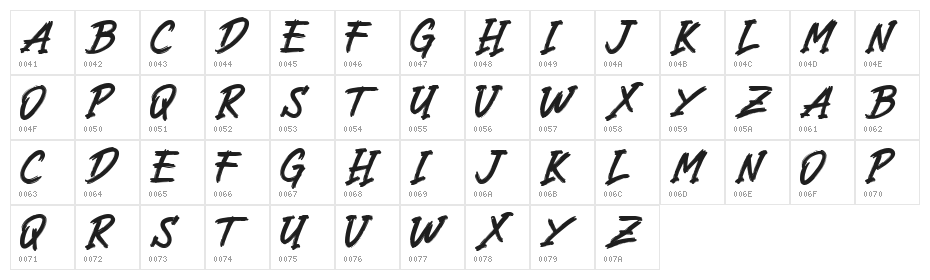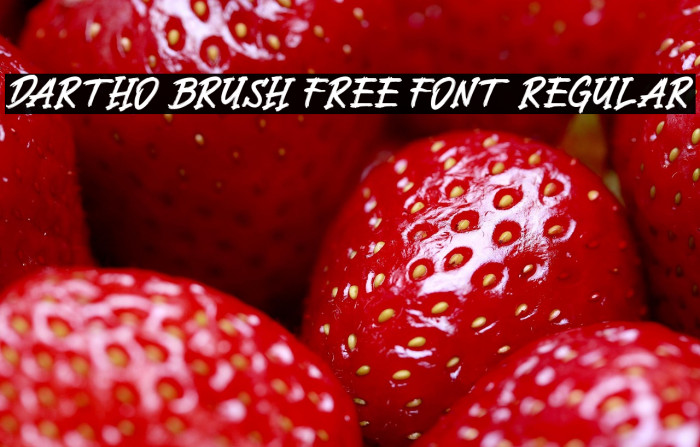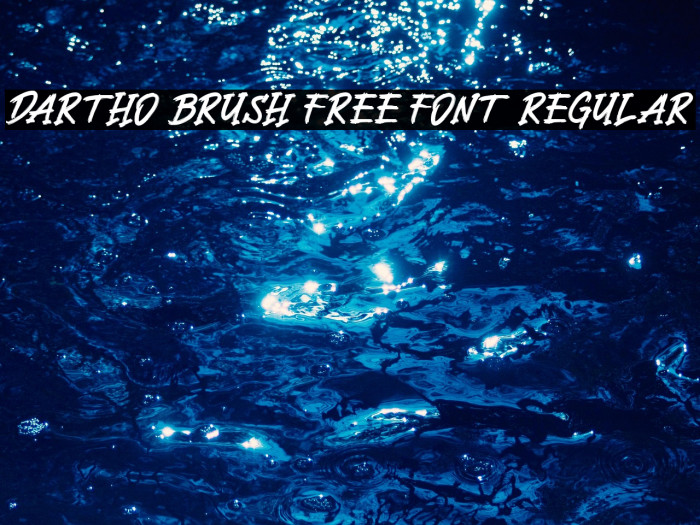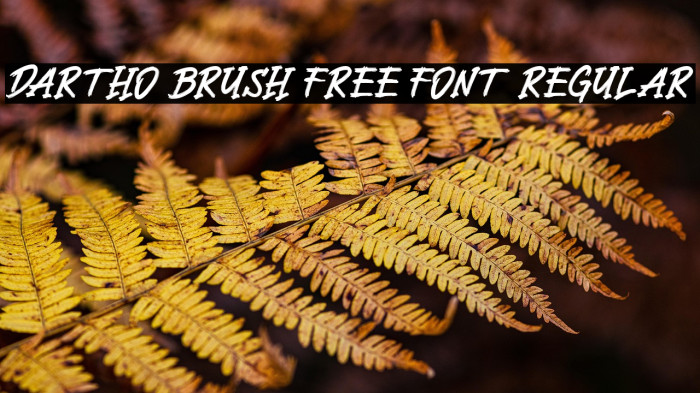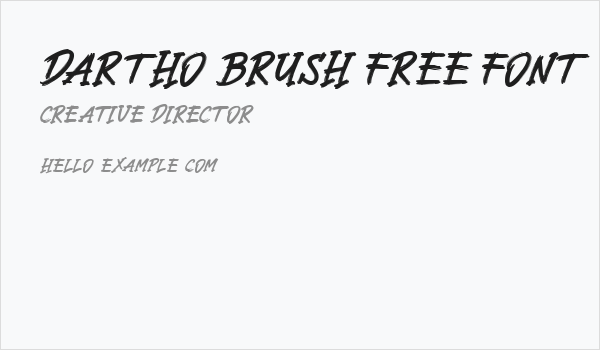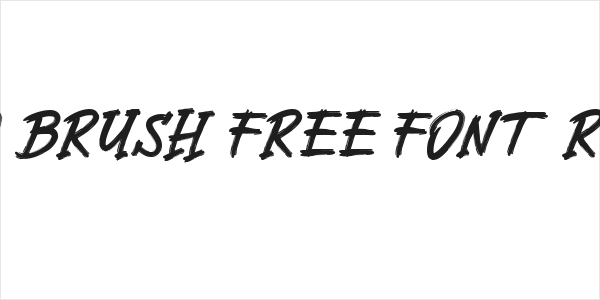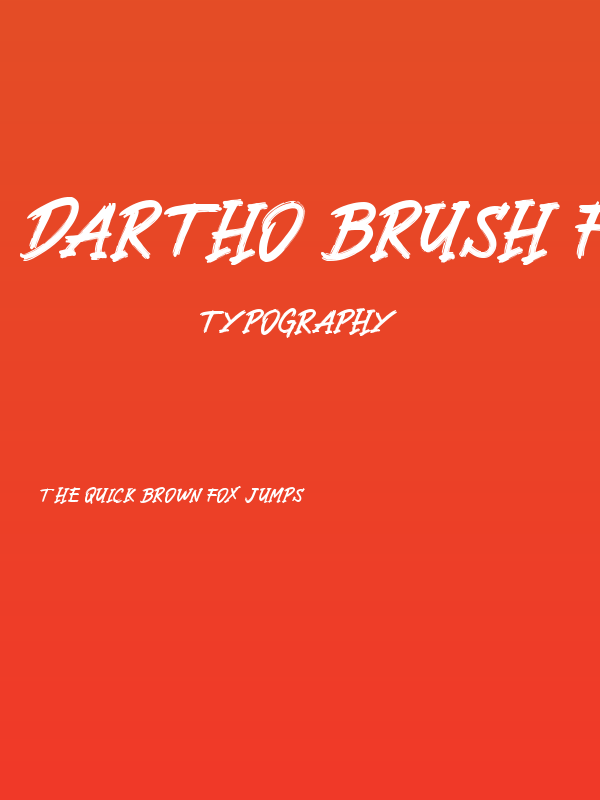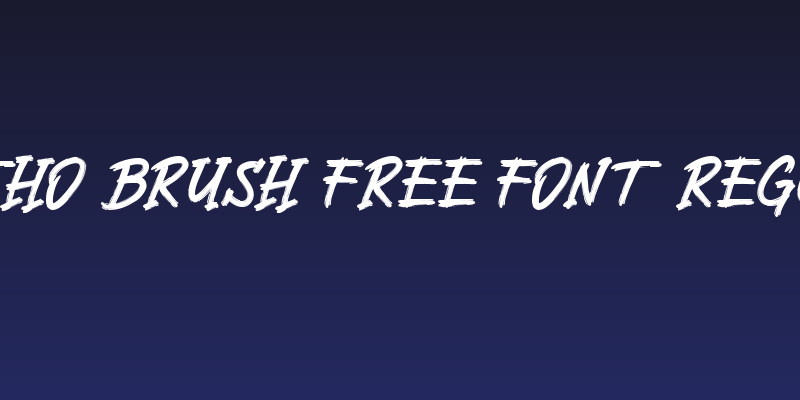
Dartho Brush Free Font Regular Font
Dartho Brush Free Font Regular Description
This font features a bold, dynamic brush style that exudes energy and movement. The strokes are thick and expressive, giving each character a sense of urgency and flair. The letters are slightly slanted, adding to the impression of speed and fluidity. The uppercase and lowercase characters maintain a consistent style, with sharp edges and pointed ends that enhance the dramatic effect. The numbers and special characters are equally bold, ensuring a cohesive look across all text elements. This font is ideal for projects that require a strong visual impact and a modern, artistic touch.
| Proposed Projects | Ideal for posters, branding, headlines, and any project needing a strong, artistic impact. |